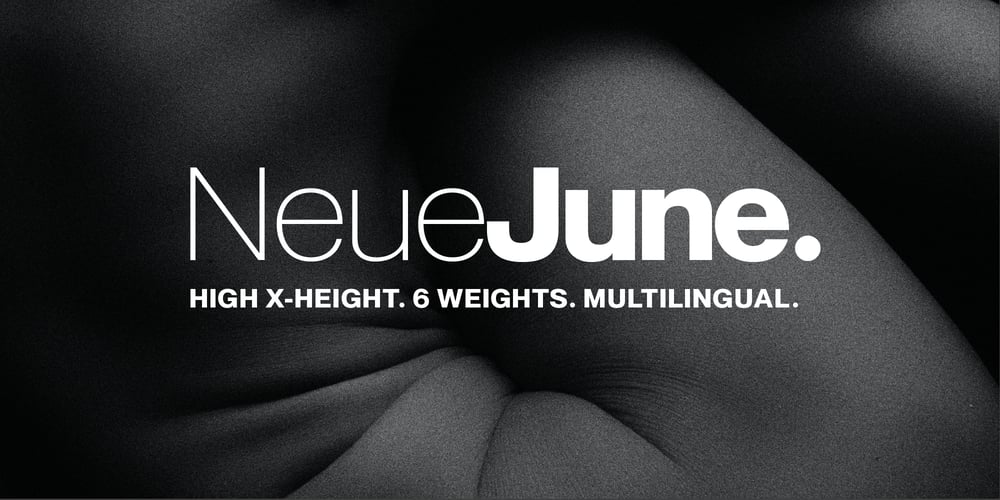
Neue June
Neue June font
Neue June Font Family was designed by Matt Chansky and published by Matt Chansky. Neue June contains 12 styles and family package options. Four years of development imbue Neue June with its uniquely crafted high x-height, enabling designers to literally and figuratively elevate layout designs. In today’s highly competitive brand marketplace, readability across communication platforms and memorability go hand in hand towards target audience retention. Neue June comes in six weights, from elegant thin to full-bodied emphatic bold, plus italics. You’ll find a robust selection of highly refined multilingual glyphs. In addition to a suite of ligatures, there are a number of extra characters, such as the estimated symbol, the number sign, and directional arrows. When the creative direction calls for sophisticated and memorable tactics—leverage the versatile 385 glyph count for big messages and easily consumable body copy.